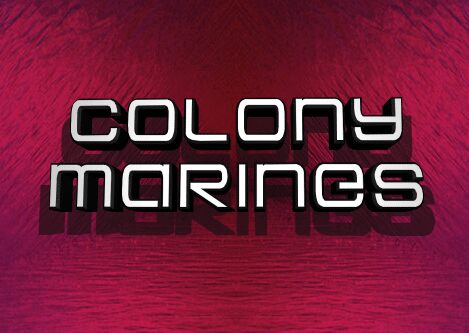
Colony Marines Condensed Ital
Colony Marines Condensed Italic font, part of the Colony Marines family designed by Iconian Fonts, embodies a striking futuristic aesthetic. Its sleek lines and angular forms create an impression of speed and innovation, making it visually arresting. The condensed structure accentuates its bold personality, while the italic style adds a dynamic flair that suggests motion and progress.
This font excels in contexts where a modern, edgy appearance is paramount—ideal for tech branding, sci-fi book covers, or gaming interfaces. Its unique characteristics lend themselves effortlessly to attention-grabbing headlines and promotional materials that require a cutting-edge vibe. Overall, Colony Marines Condensed Italic is not just a typeface; it’s a statement of forward-thinking design that transforms any project into something remarkable.